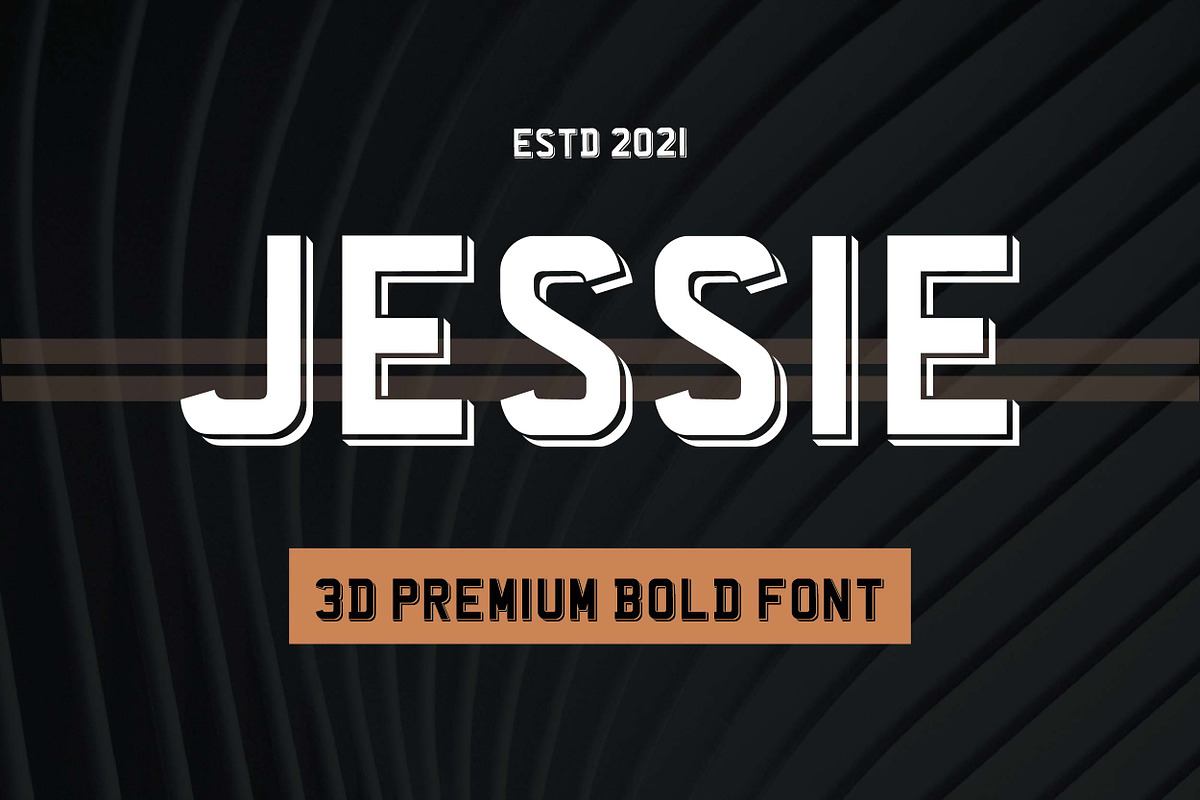
Jessie – 3D Premium Bold Display Font Free Download is a striking and dynamic typeface that combines bold, thick strokes with a unique 3D effect, creating a powerful visual presence. Perfect for high-impact designs such as logos, headlines, posters, product packaging, and movie titles, this font delivers a modern and attention-grabbing style.
With its sculptural, dimensional look, Jessie – 3D Premium Bold Display Font Free Download is ideal for projects that demand bold, futuristic aesthetics, making your typography stand out from the crowd. The 3D effect adds depth and drama, making it perfect for both digital and print design.